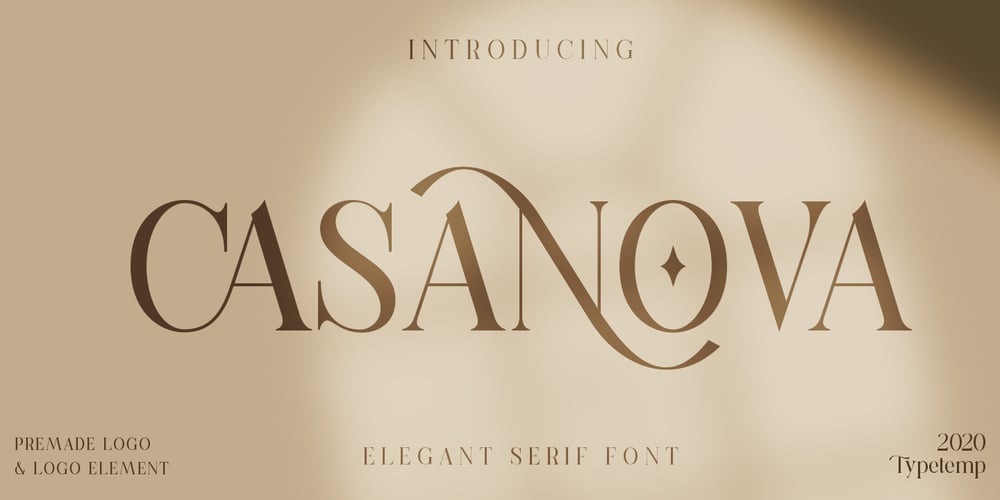
Casanova Serif Display
Casanova Serif Display Font Family was designed by Haris Purnama Putra, Egi Ahmad Mufid and published by Typetemp Studio. Casanova Serif Display contains 1 styles and family package options. Casanova Serif Display a modern-style serif font with alternatives and ligatures that create stunning logos, quotes, posts, blog posts. branding projects, magazine imagery, wedding invitations, and much morencluded : 6 Premade Logo and 25+ Illustration Eps/Ai FileFEATURES Stylistic Alternates & Ligatures Numerals & Punctuation Accented characters Illustration Floral Ai/Eps Multiple Languages Supported Contact me with an inbox message If you have any question. Thank you! Happy Creating.